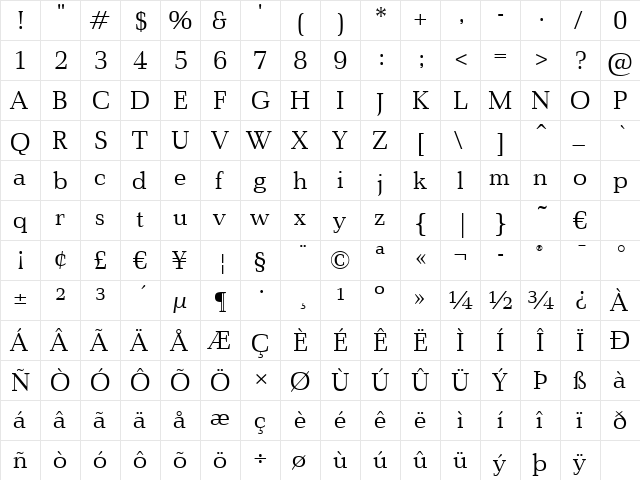
Nikki New Roman GD Regular
| Designer | Galapagos Design Group, Inc. George Ryan |
Design Context for Nikki New Roman GD Typeface
Nikki New Roman GD takes a measured approach to typography — its balanced proportions and neutral character make it a reliable workhorse for both digital and print work.